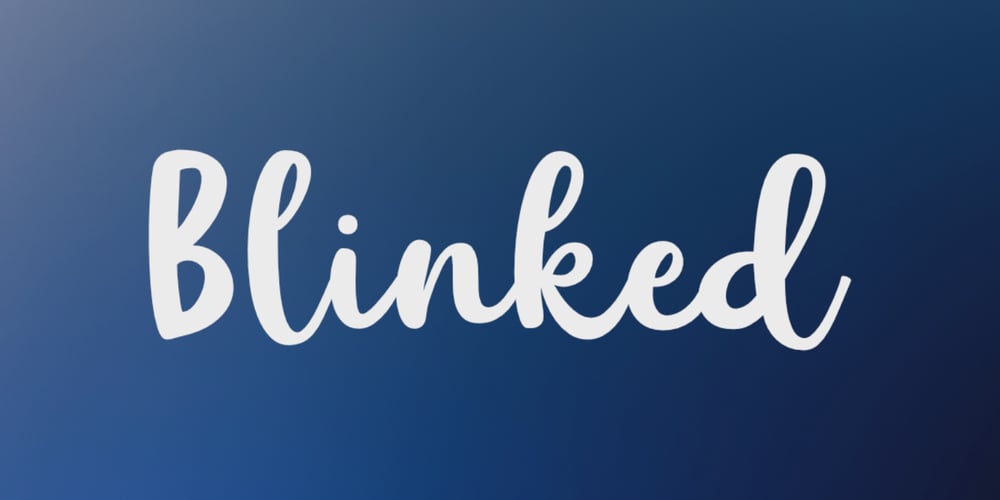
Blinked Font Family was designed by Aldy Sidik and published by Epiclinez. Blinked contains 1 styles and family package options. Blinked is a stylish handwritten script font. It is suitable for your crafting projects, but also for logos, quotes and so much more.